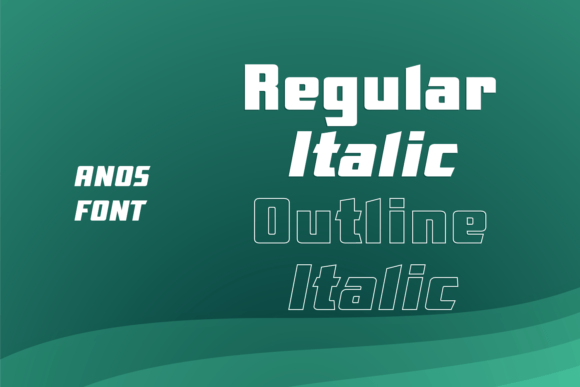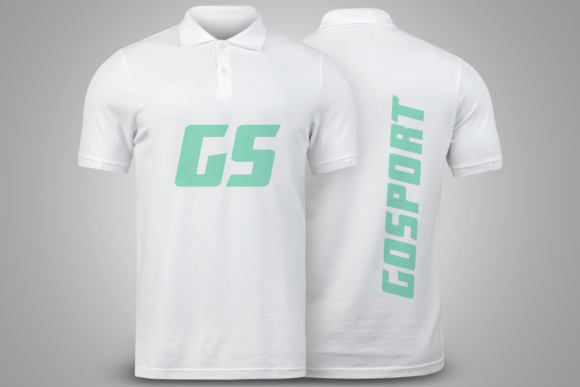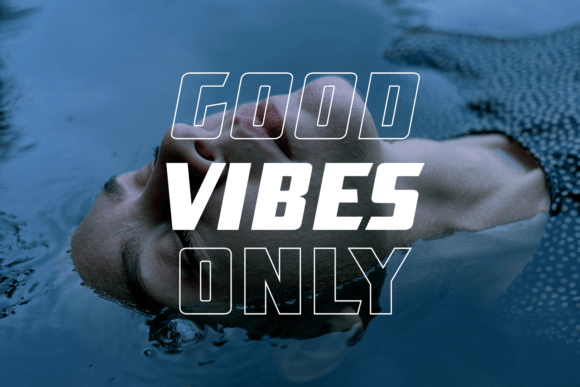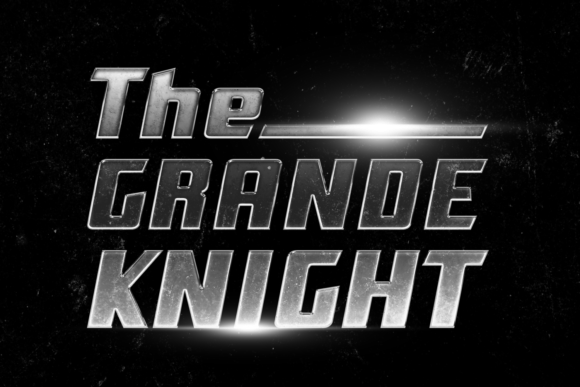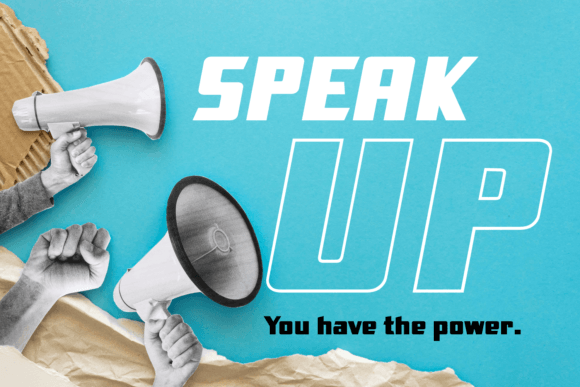
Introducing Anos Font: The Bold and Thick Lettered Font to Elevate Your Designs
Are you tired of using the same old fonts in your designs? Do you want to add a touch of boldness and thickness to make your creations stand out? Look no further than Anos Font! This eye-catching font is designed to add a new level of excitement to your designs, making them come alive with its bulky and attention-grabbing style.
What is Anos Font?
Anos Font is a bold and thick lettered font that is perfect for designers and crafters looking to add a touch of drama to their work. Its unique and sturdy design makes it ideal for a wide range of projects, from posters and flyers to logos and branding materials. With Anos Font, you can add a level of sophistication and elegance to your designs, while also making them more engaging and attention-grabbing.
Key Features of Anos Font
- Bold and Thick Letters: Anos Font features bold and thick letters that are designed to make a statement. Its sturdy design ensures that your text stands out, even at a distance.
- Elegant and Sophisticated: Despite its bold design, Anos Font is also elegant and sophisticated, making it perfect for high-end branding and design projects.
- Versatile: Anos Font is versatile and can be used in a wide range of projects, from print materials to digital designs.
- Easy to Read: Despite its bold design, Anos Font is easy to read, making it perfect for body text and headlines.
Benefits of Using Anos Font
So why should you use Anos Font in your designs? Here are just a few benefits of using this amazing font:
- Adds Visual Interest: Anos Font adds visual interest to your designs, making them more engaging and attention-grabbing.
- Elevates Your Brand: With its elegant and sophisticated design, Anos Font can help elevate your brand and make it more memorable.
- Increases Readability: Despite its bold design, Anos Font is easy to read, making it perfect for body text and headlines.
- Versatile: Anos Font can be used in a wide range of projects, making it a great addition to your font library.
How to Use Anos Font in Your Designs
Using Anos Font in your designs is easy! Here are a few tips to get you started:
- Use it as a Headline Font: Anos Font is perfect for headlines and titles, where its bold design can really make a statement.
- Pair it with Other Fonts: Anos Font pairs well with other fonts, making it easy to create visually interesting and dynamic designs.
- Experiment with Different Colors: Anos Font looks great in a wide range of colors, so don’t be afraid to experiment and find the perfect color for your design.
In conclusion, Anos Font is a bold and thick lettered font that is perfect for designers and crafters looking to add a touch of drama to their work. With its elegant and sophisticated design, Anos Font is sure to elevate your designs and make them more engaging and attention-grabbing. So why wait? Add Anos Font to your font library today and start creating amazing designs that will leave a lasting impression!
Whether you’re a seasoned designer or just starting out, Anos Font is a great addition to your font library. Its versatility, readability, and bold design make it perfect for a wide range of projects, from print materials to digital designs. So why not give Anos Font a try and see how it can take your designs to the next level?